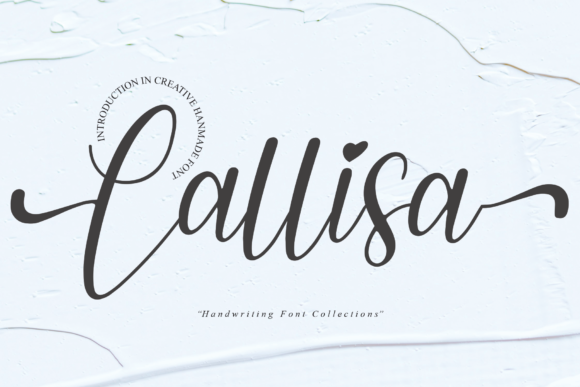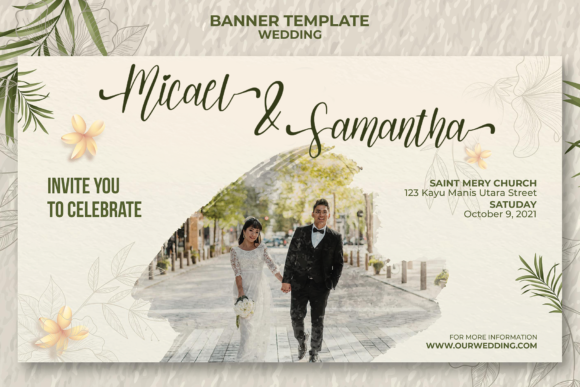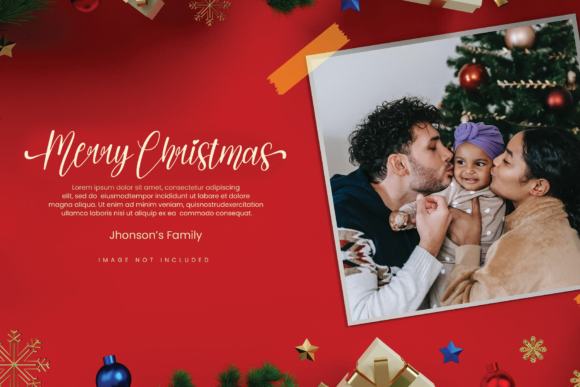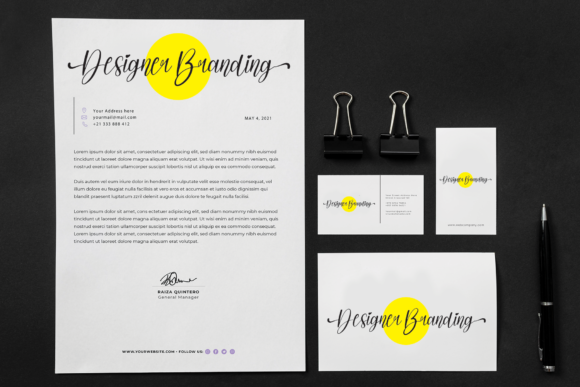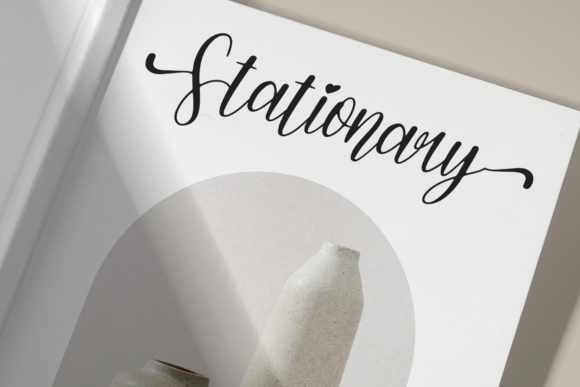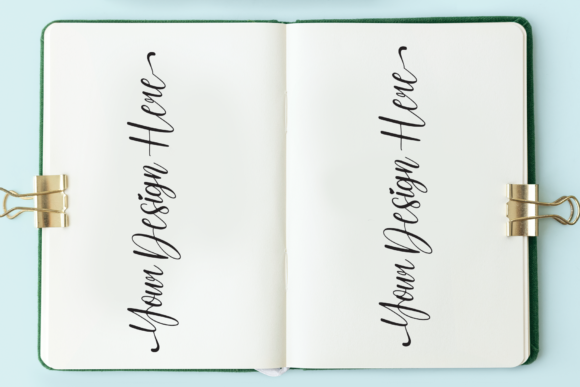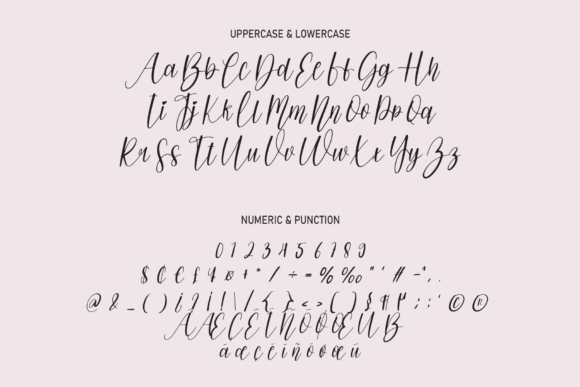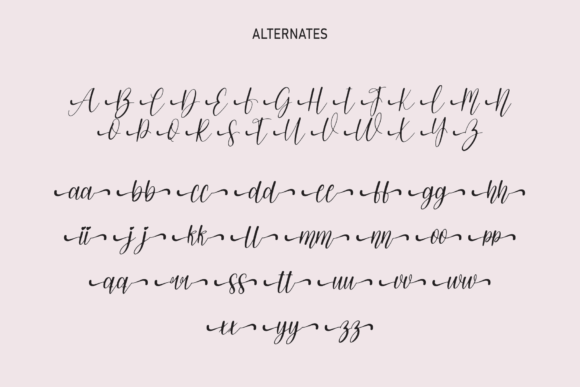
Callisa Font
About Callisa Font
Callisa feels equally charming and elegant. It looks stunning on wedding invitations, thank you cards, quotes, greeting cards, logos, business cards and more.